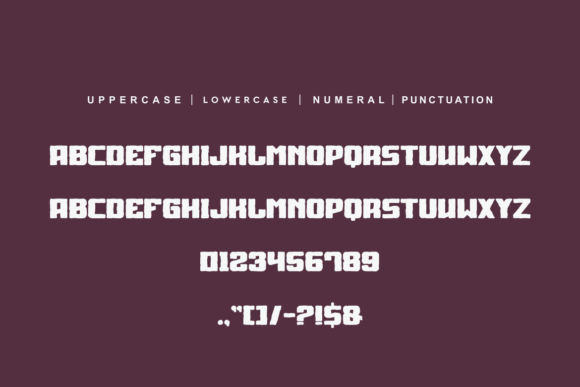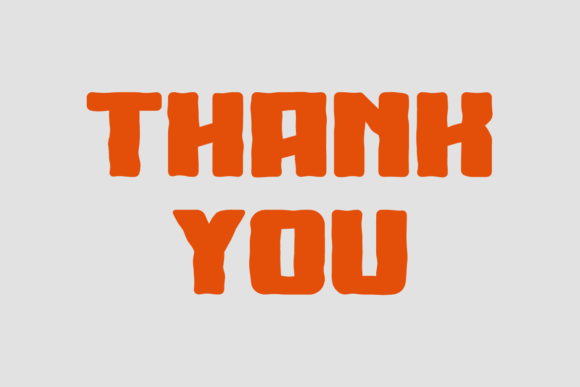
Introduction to Kids Super Font
As a designer, have you ever been stuck on a project, searching for that perfect font to make it stand out? I know I have. There’s nothing quite like the thrill of finally finding that elusive design resource that brings your creative project to life. For me, that moment came when I discovered the Kids Super Font.
This high-quality font is a game-changer for designers looking to add a bold, eye-catching touch to their work. With its transparent background and vibrant feel, Kids Super Font is perfect for sports design, team logos, and jerseys. Whether you’re working on a project for a sports league, film, or book cover, this font is sure to draw attention and leave a lasting impression. And the best part? It’s available for free download, making it an invaluable resource for designers of all levels.
Key Features of Kids Super Font
- High-quality design resource with a playful and colorful style, perfect for creative projects targeting children.
- Comes in a transparent background option, allowing for easy customization and integration into various design settings.
- Unique characteristics include bold lines, vibrant colors, and fun shapes, making it an excellent choice for kids’ designs and illustrations.
- Perfect for designers working on kids’ magazines, educational materials, and children’s book covers, among other creative projects.
Honest Review: Kids Super Font
I recently stumbled upon the Kids Super Font, and I must say it’s a delightful addition to any design resource library. The free download comes in a variety of styles, making it perfect for creative projects that require a playful touch. ✨ The font’s transparent background allows for seamless integration with any background image or color.
The font’s high quality is evident in its crisp, clear letters. It’s easy to see why it’s a popular choice among designers. One of the standout features is its versatility – it’s suitable for both digital and print projects. Whether you’re working on a children’s book, a website, or a marketing campaign, Kids Super Font is sure to bring a smile to your audience’s face.
- High quality and crisp letters
- Variety of styles to suit different design needs
- Limitations:
- May not be suitable for formal or professional projects
- Some users may find the font too playful or distracting
Overall, I’m impressed with the Kids Super Font. While it may have some limitations, its high quality and versatility make it a valuable addition to any design resource library. If you’re working on a creative project that requires a playful touch, I highly recommend giving it a try.
Kids Super Font is a high-quality, free download font ideal for creative projects that require a playful and youthful touch. This versatile font features a transparent background, making it easy to layer and customize.
To get the most out of Kids Super Font, try using it in combination with other design elements to create a unique and eye-catching visual effect.
Kids Super Font is ideal for designing children’s products, educational materials, and marketing campaigns that target a young audience.